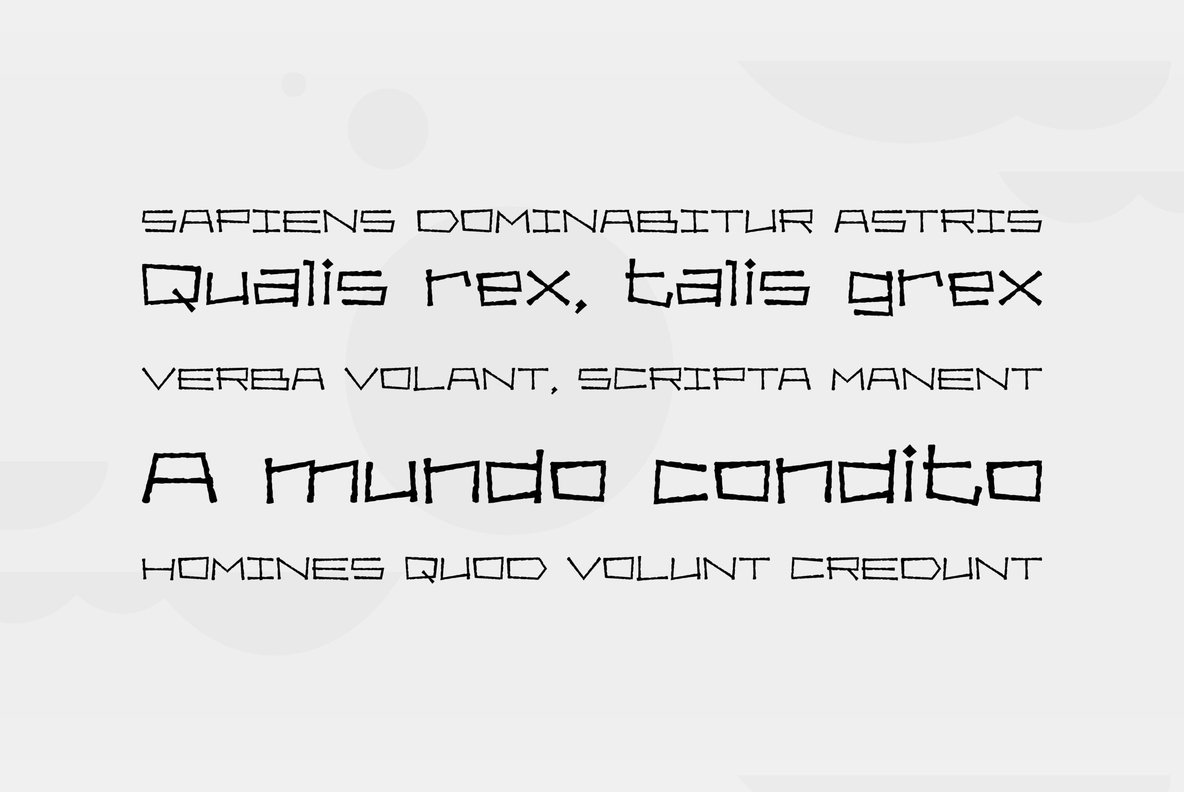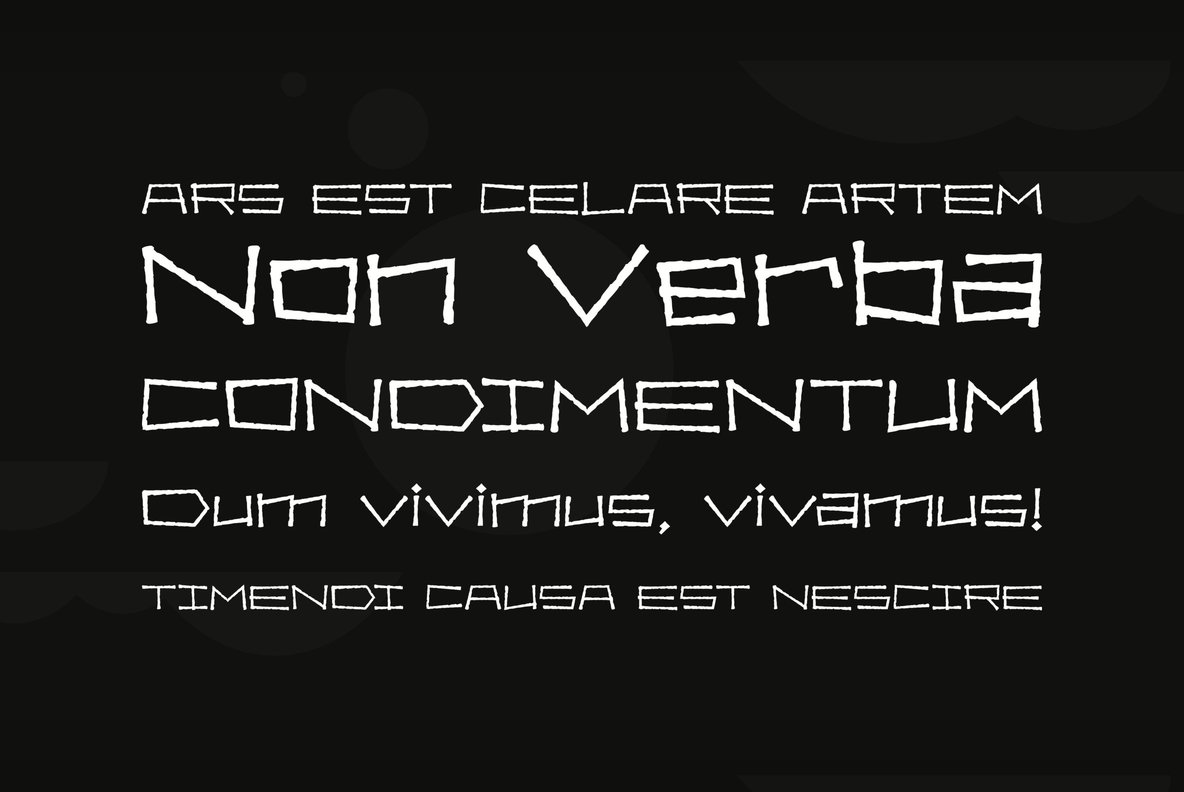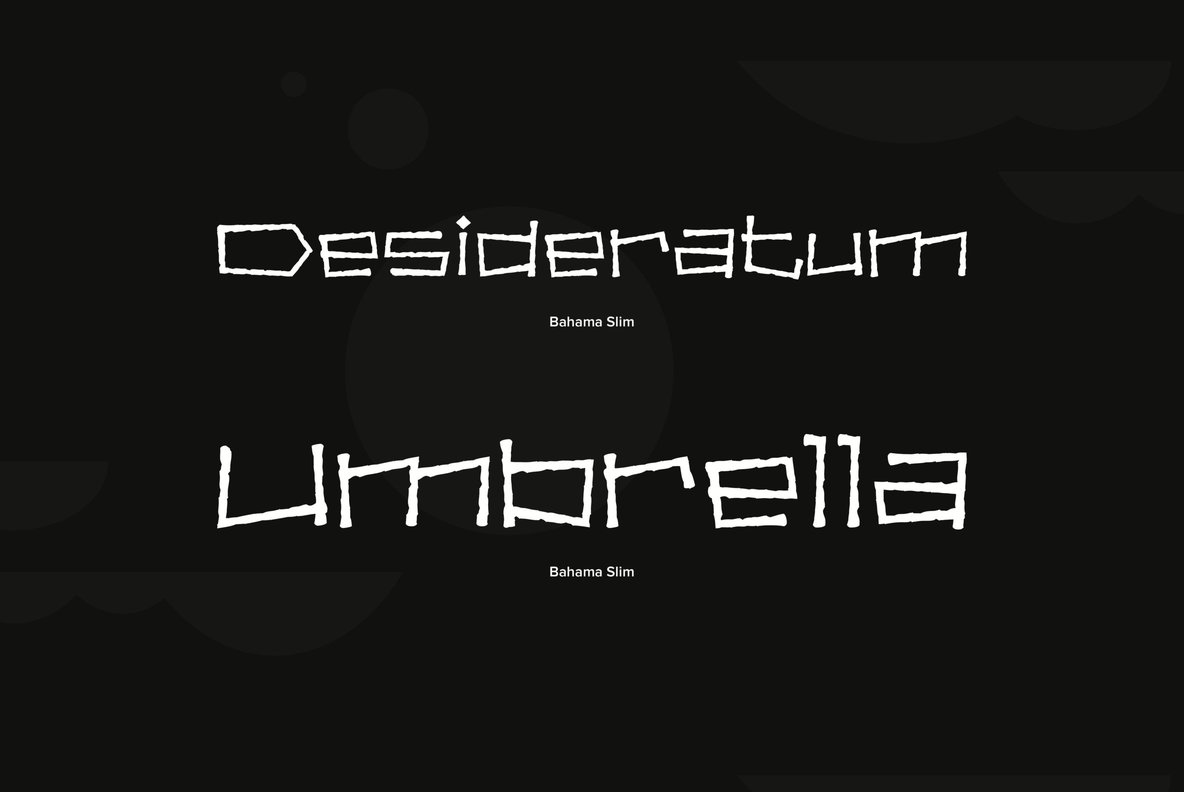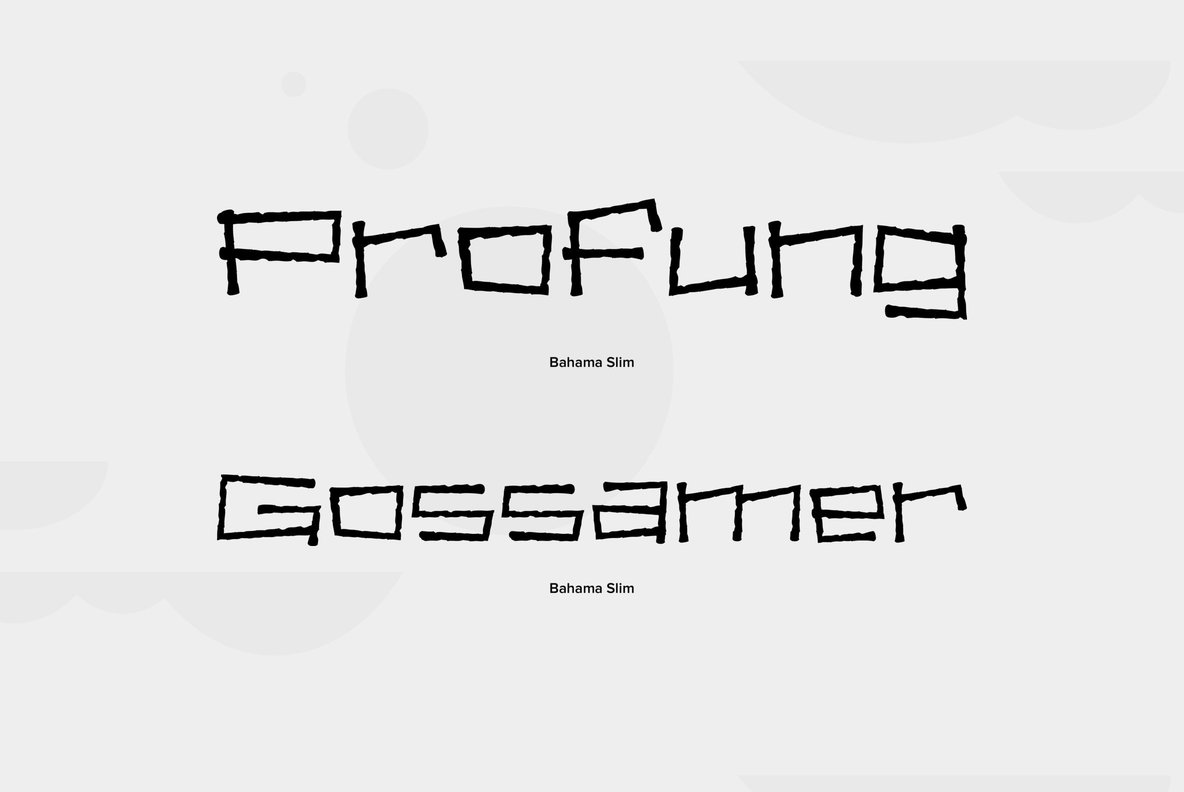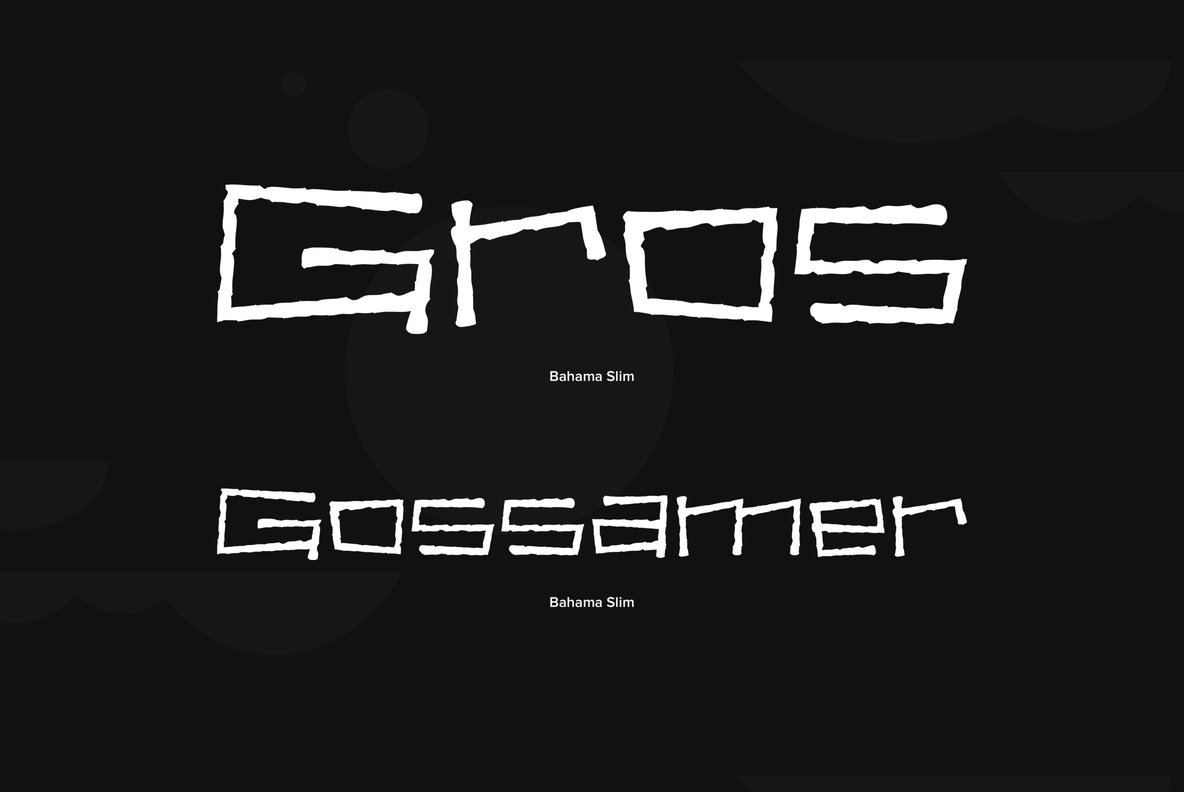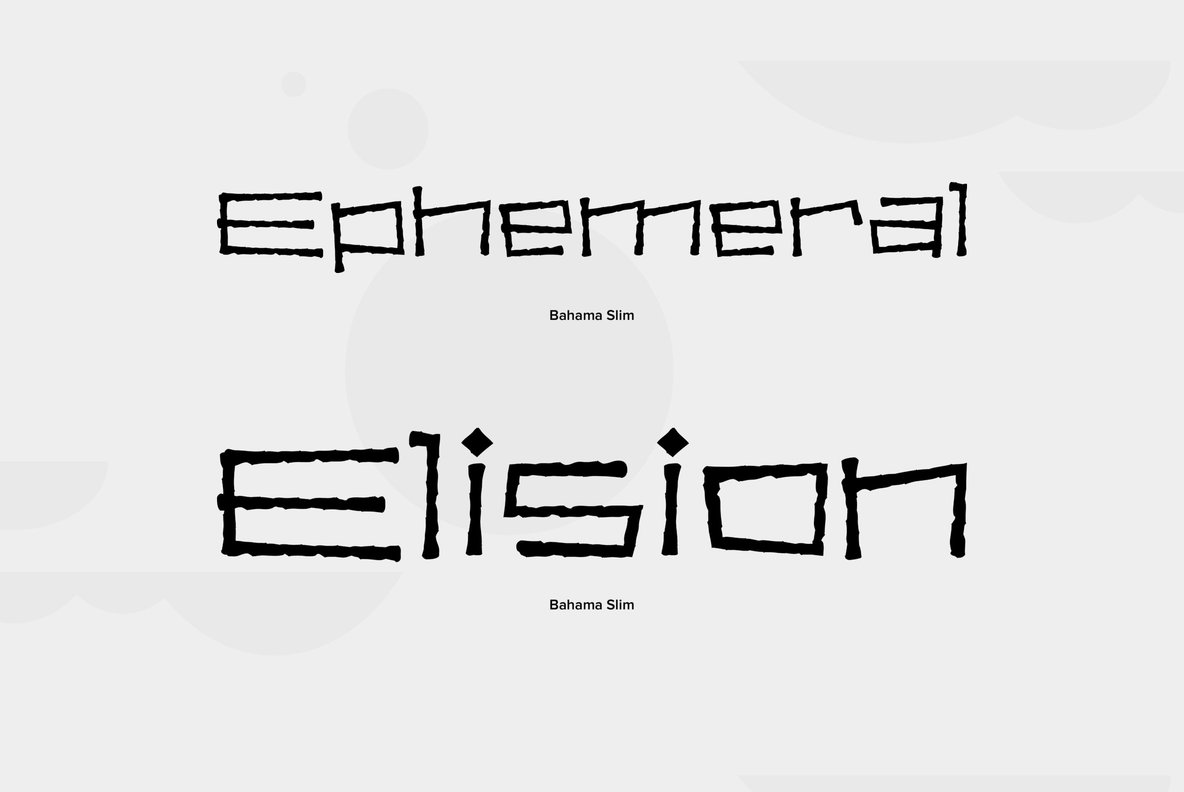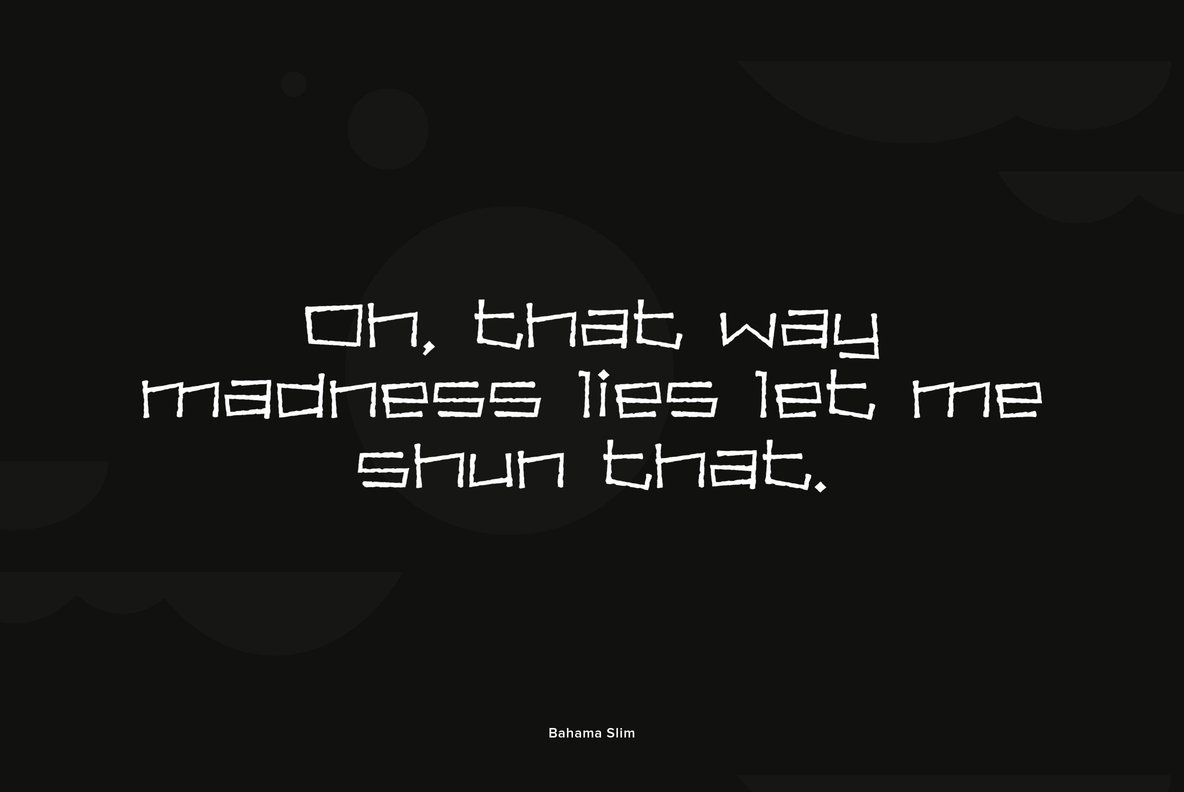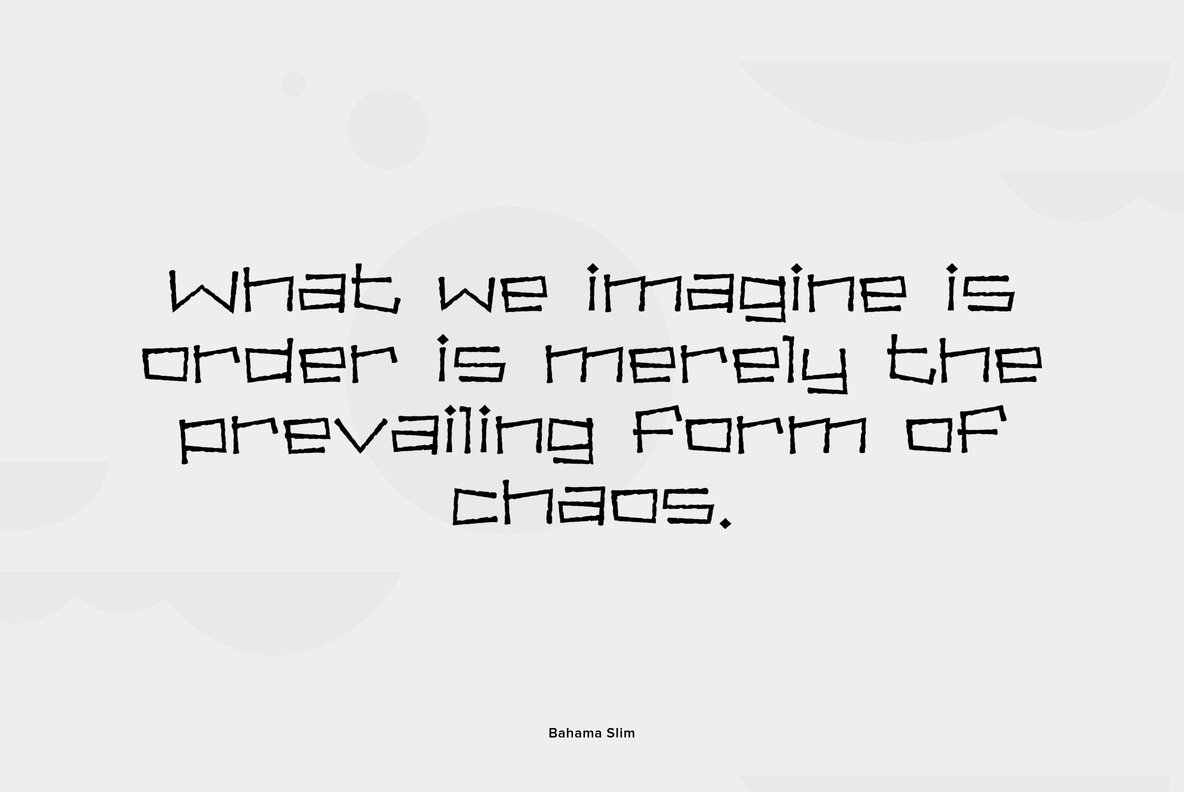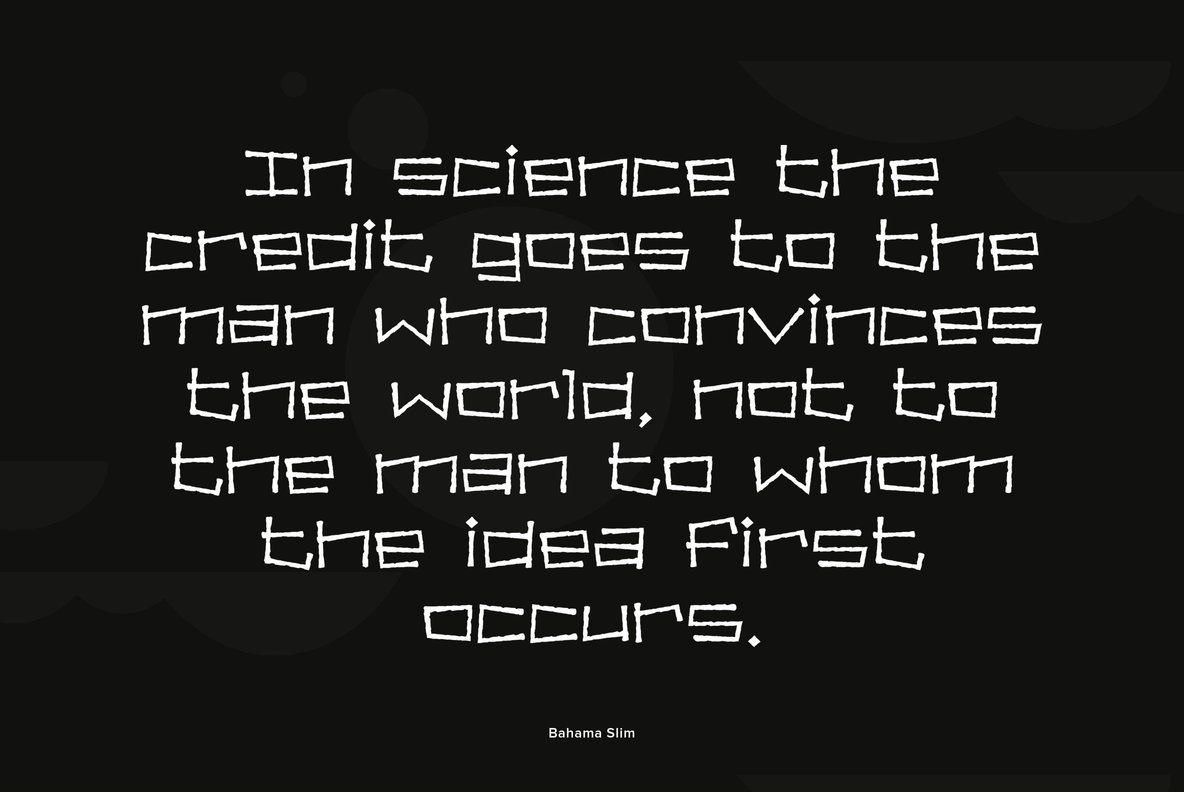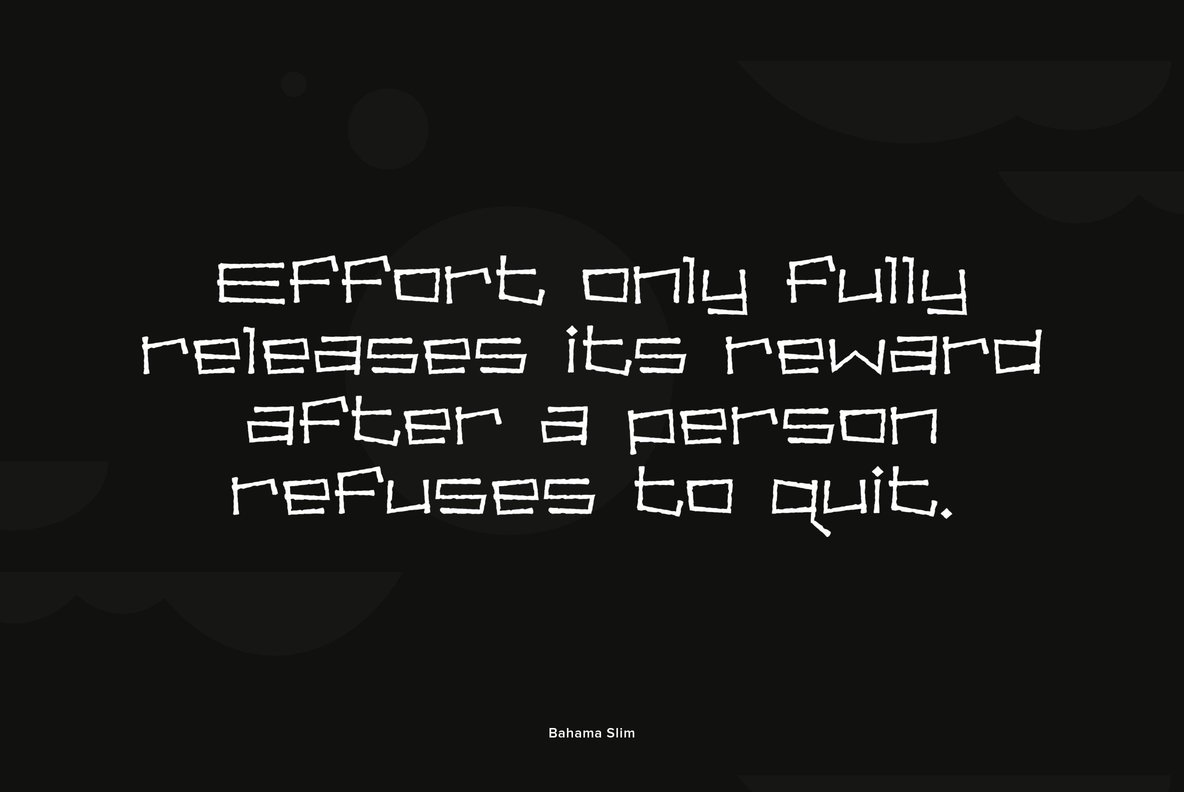
Bahama Slim
Foundry: Font Diner
Enjoy the coming of Summer paradise with this low-carb tropical typeface with a tasty conch shell salad (pronounced conk).